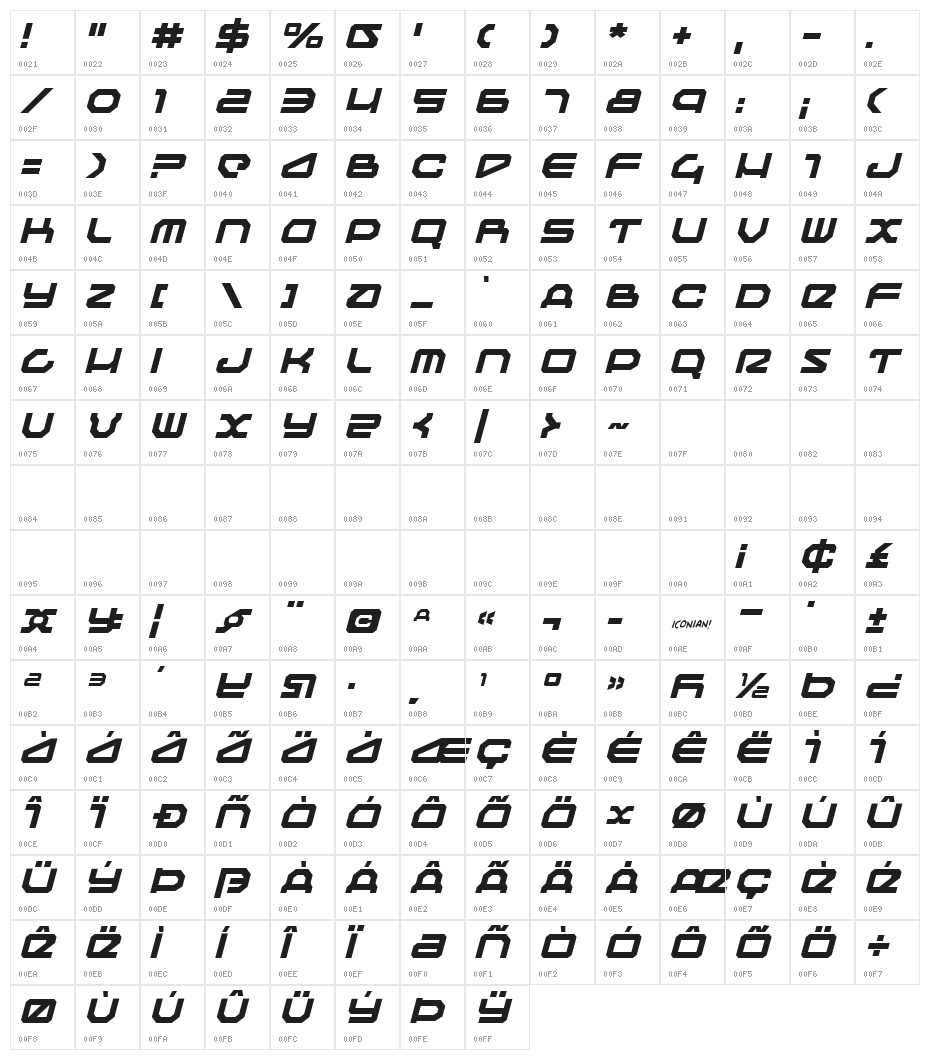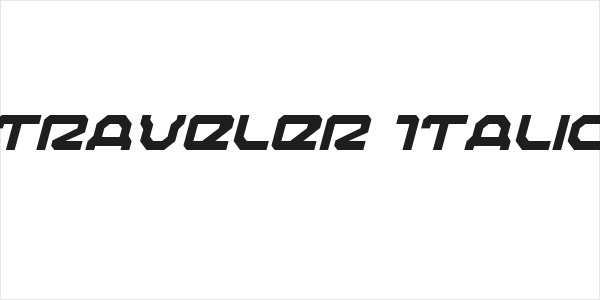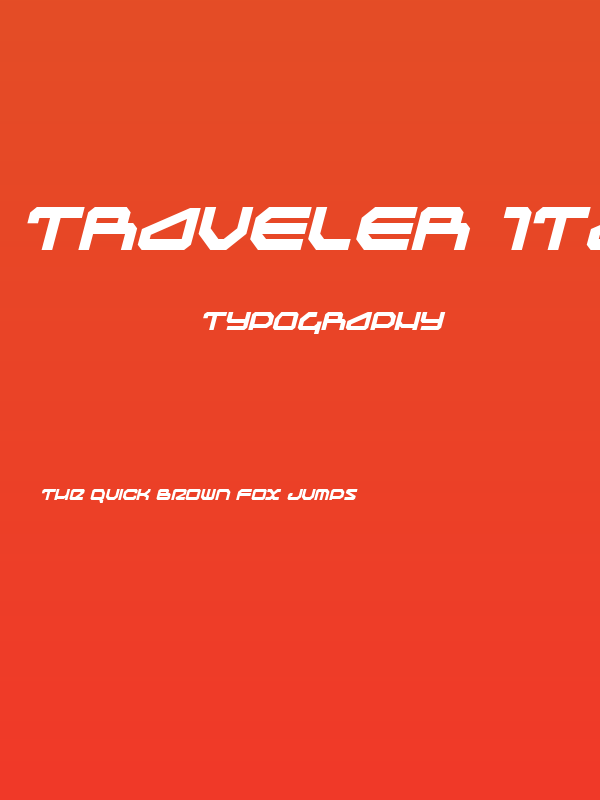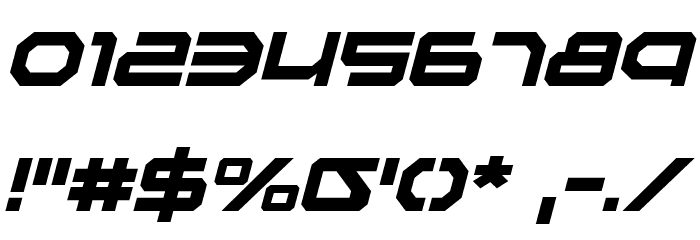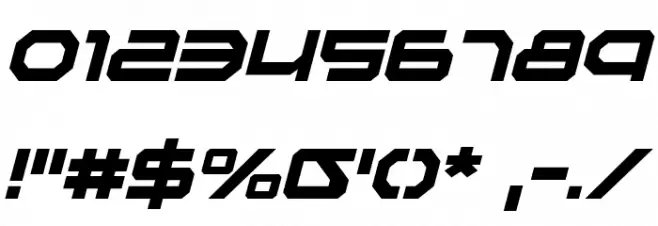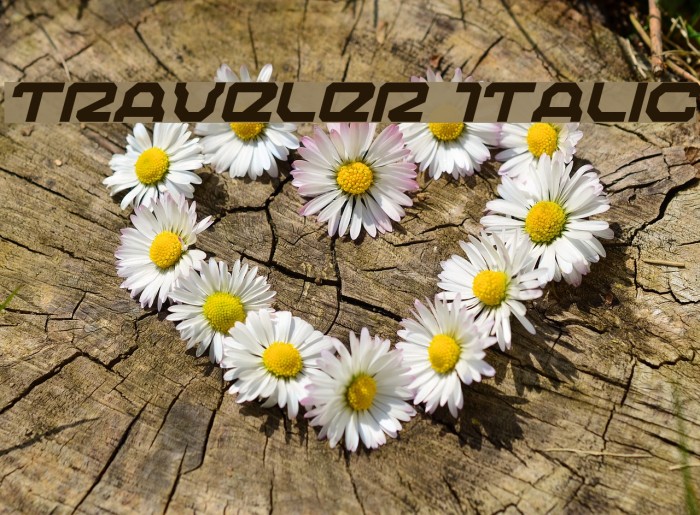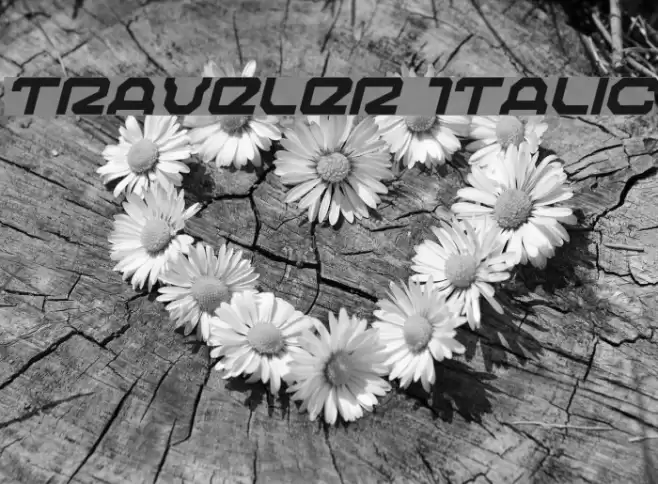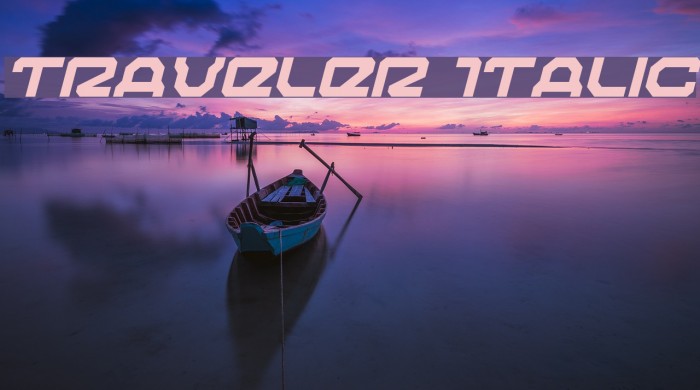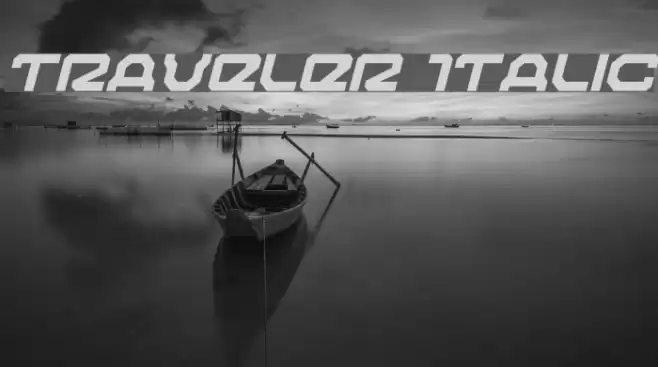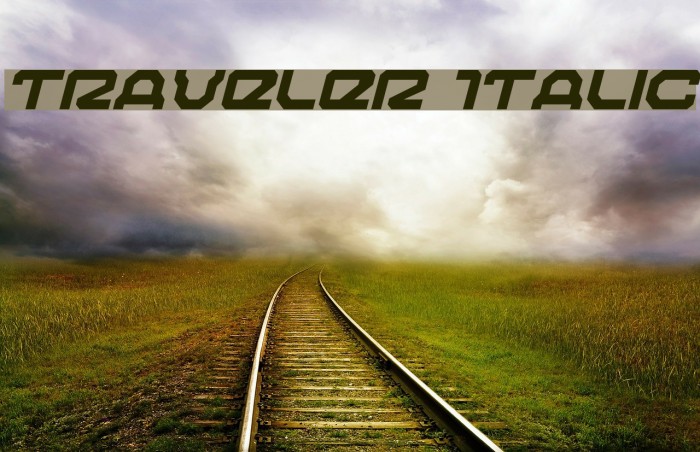
Traveler Italic Font
Traveler Italic Description
This font features a futuristic and angular design, characterized by its sharp edges and geometric shapes. The italic style adds a dynamic and forward-leaning appearance, enhancing its modern aesthetic. Each character is distinct with a bold presence, making it highly legible even at smaller sizes. The uppercase and lowercase letters maintain a consistent style, while the numbers and special characters complement the overall design. This font is ideal for projects that require a contemporary and edgy look, such as technology branding, sci-fi themes, or digital interfaces.
| Use Case | Headlines, Logos, Digital interfaces |
| Proposed Projects | Ideal for technology branding, sci-fi themes, digital interfaces, and modern advertising. |